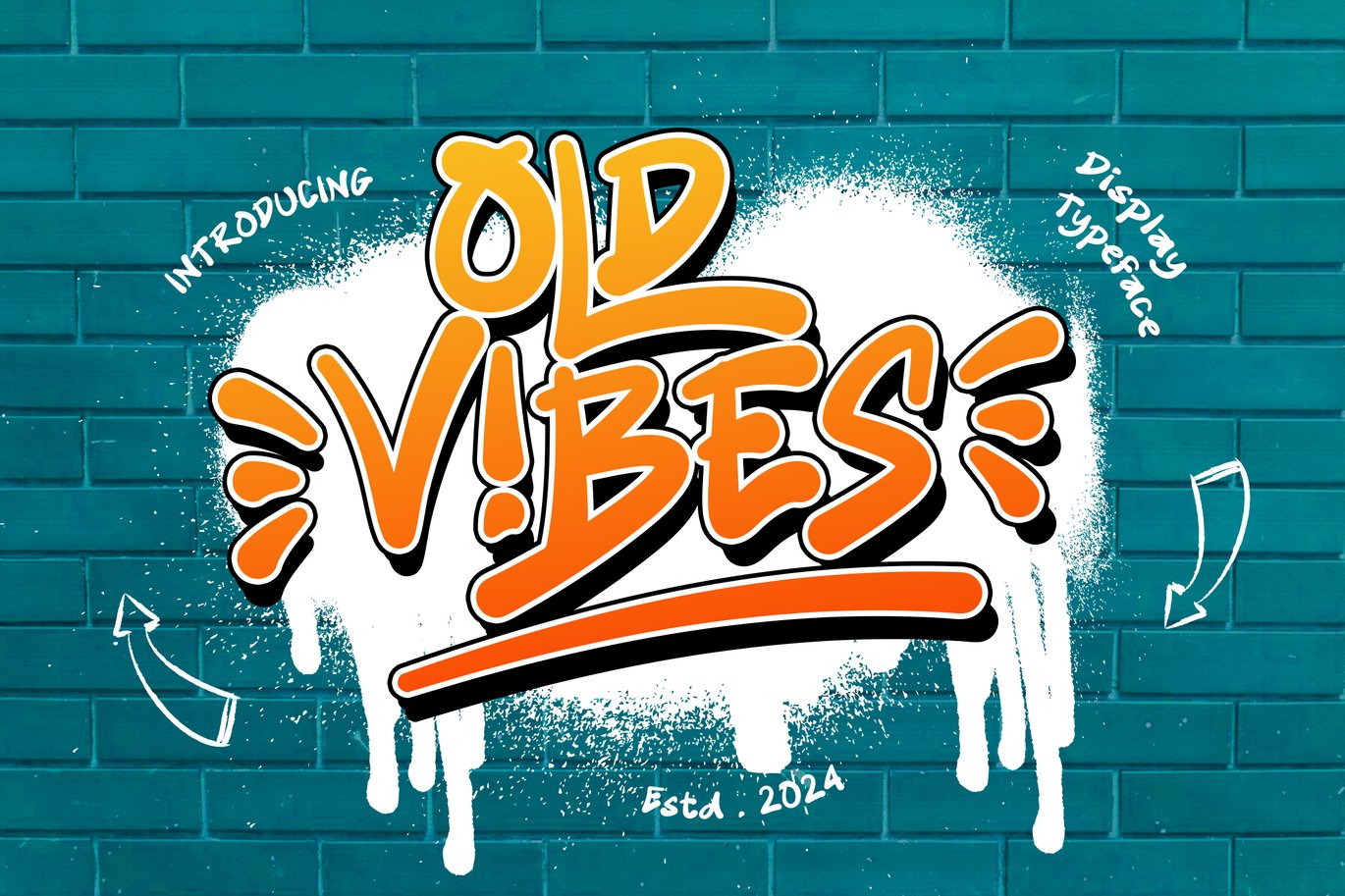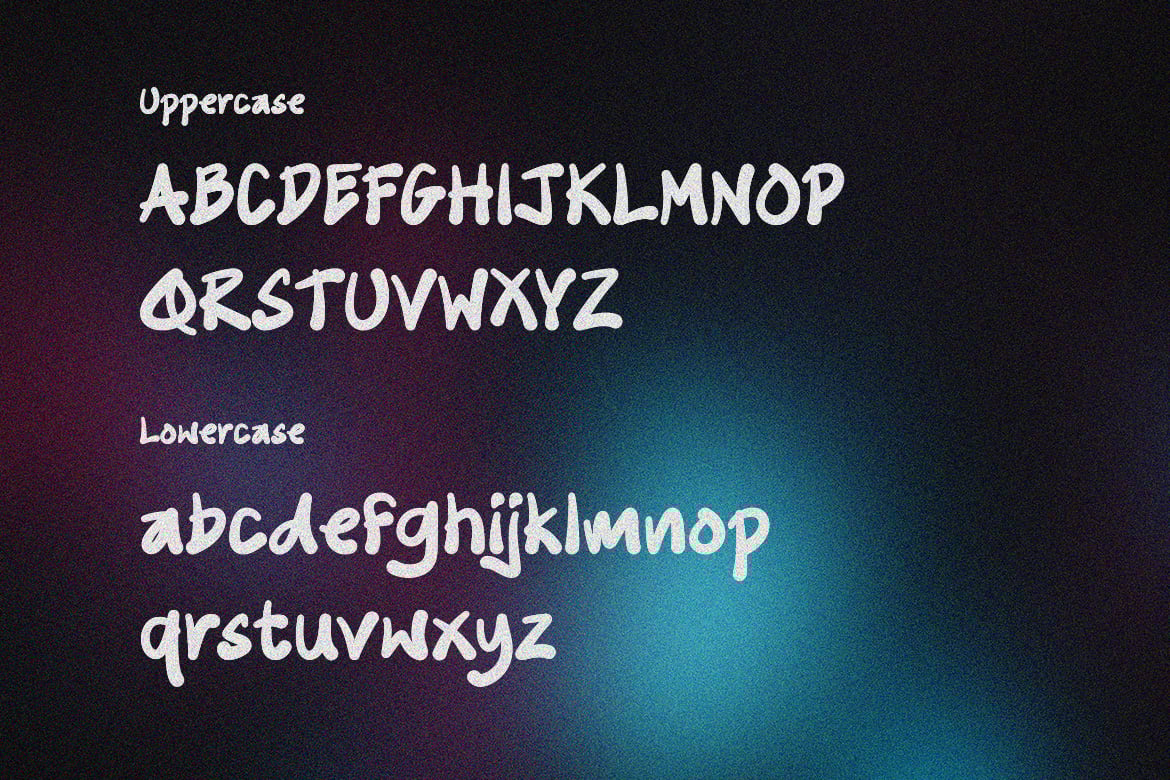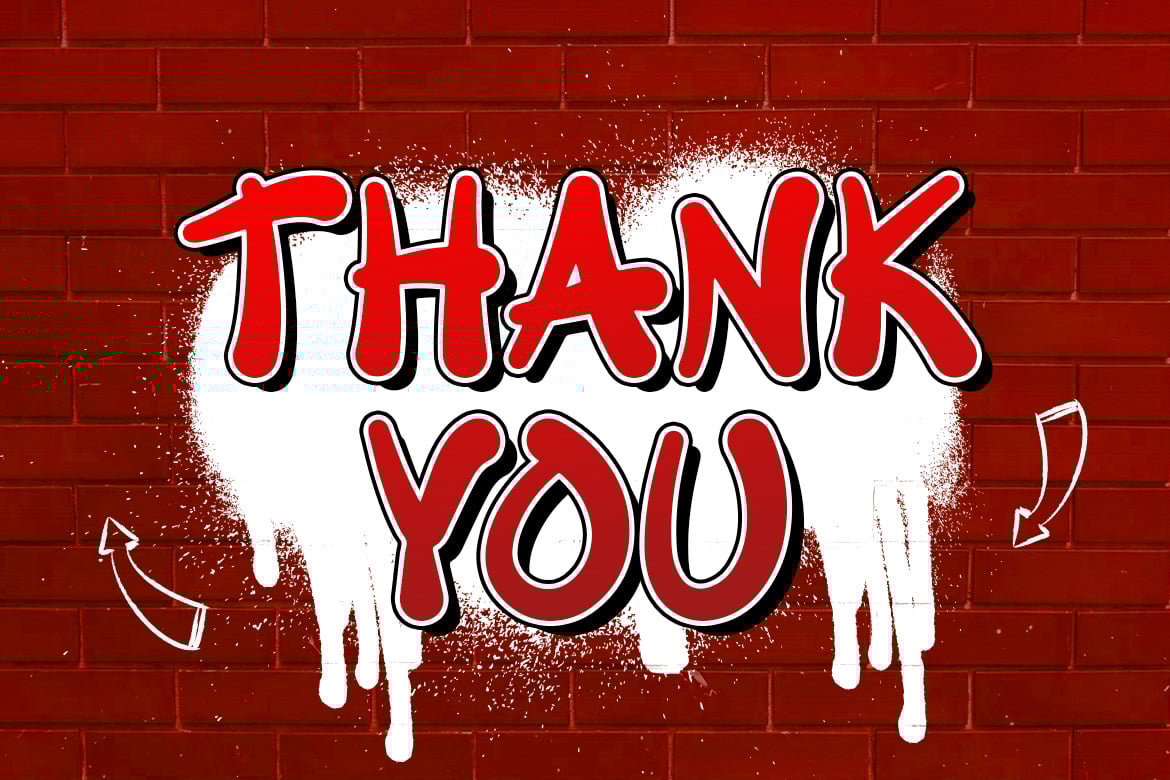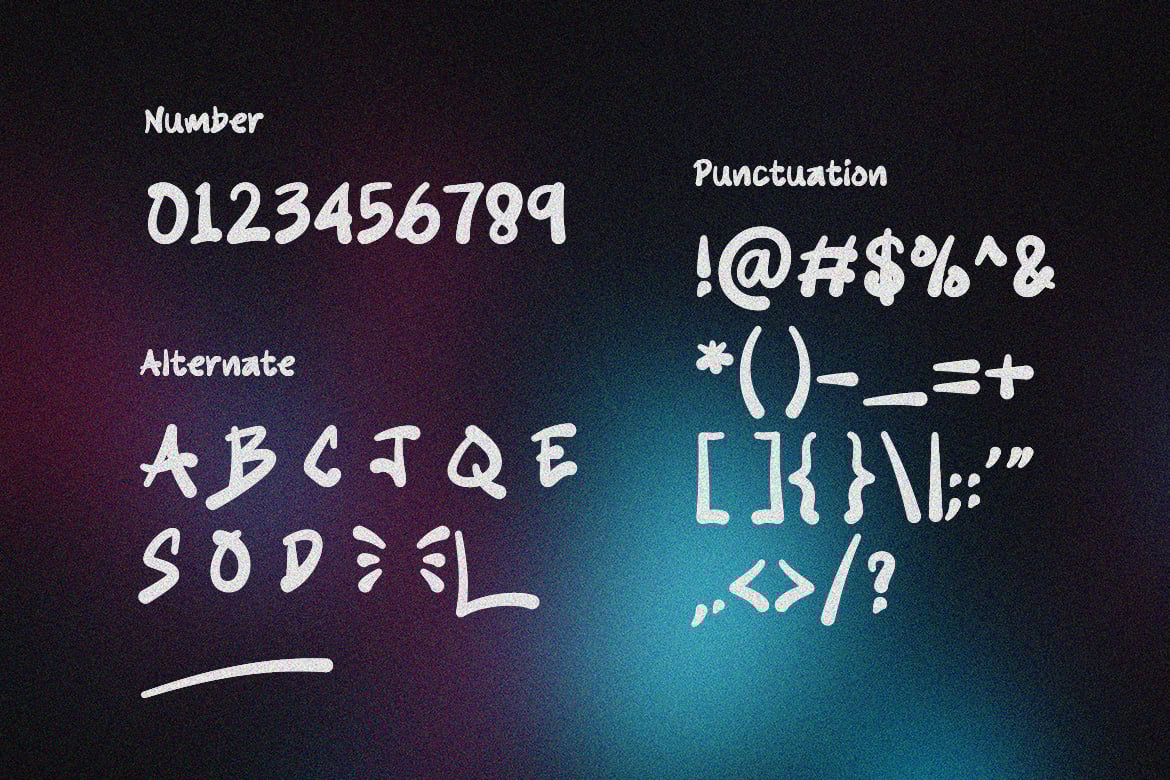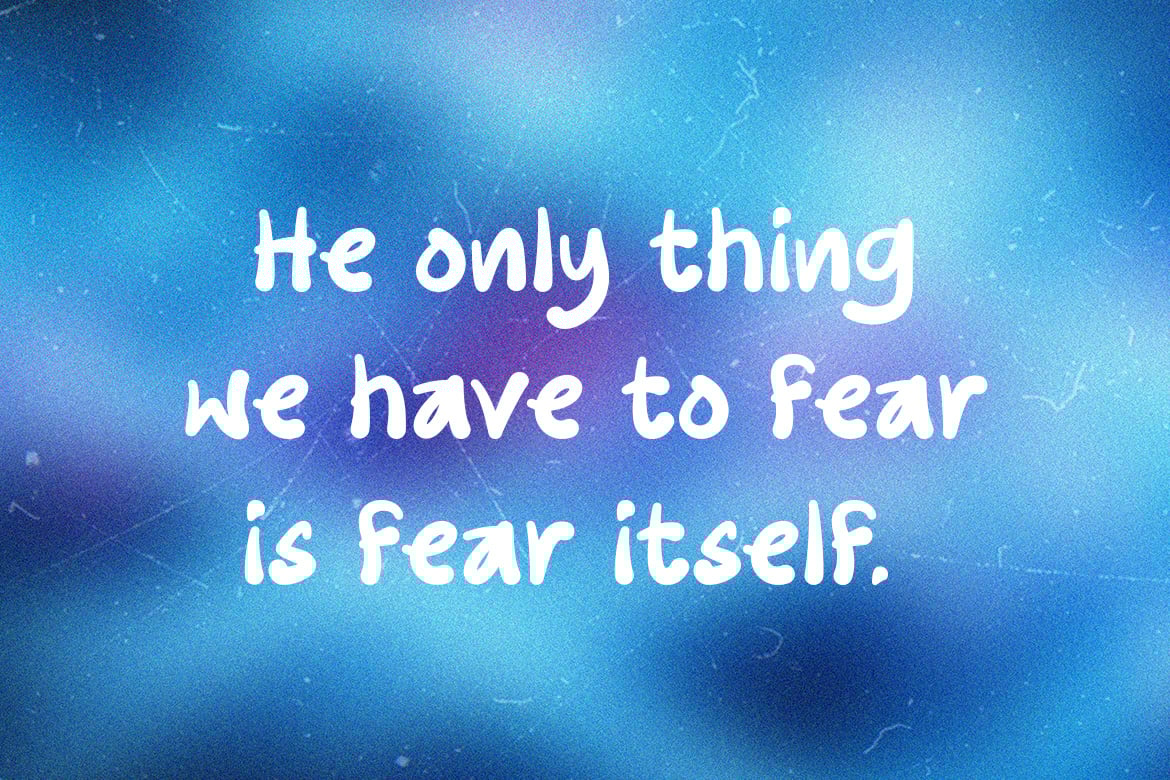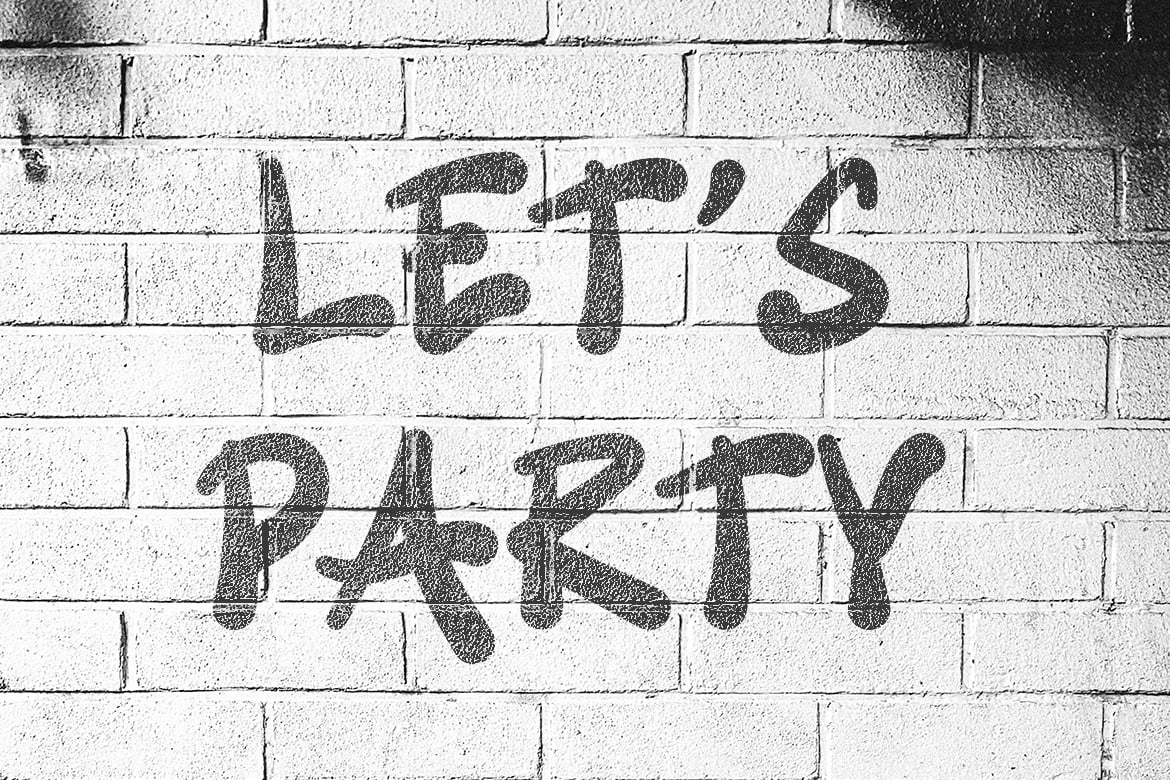
Old Vibes – Display Font
Old Vibes a unique display typeface perfect for titles, large text, branding, logotypes & graphic design purposes such as posters, pamphlets, and advertisements. This letter font can be a great choice for creating amazing logos, promotional content, and marketing presentations that can bring uniqueness and freshness at its best.
Uppercase and Lowercase letters
Numbering and Punctuations
Alternate